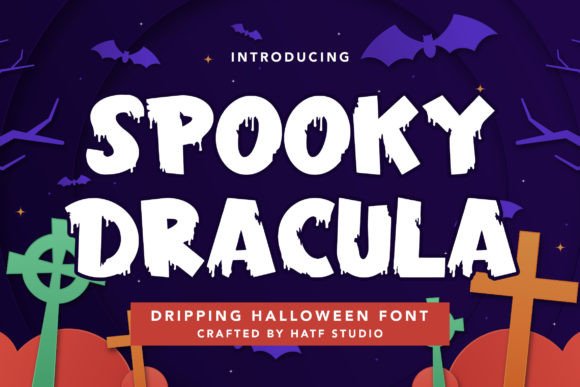
Venture into the captivating world of Spooky Dracula – a font that exudes an uncanny charm like no other. Each character drips with an eerie elegance reminiscent of a moonlit Halloween night. Whether you're crafting prayer cards that demand attention, creating posters that send shivers down spines, or designing logos that haunt the imagination, Spooky Dracula is your perfect companion.
Immerse yourself in the mystique of this display font. Its intricate details and haunting beauty will bestow your designs with a touch of the supernatural. Imagine your words taking on a life of their own, captivating your audience with their spectral allure. Spooky Dracula possesses an unmatched ability to evoke emotions, leaving an indelible mark on those who behold it.
With Spooky Dracula, you possess the ultimate tool to unleash your creativity. Let your imagination run wild as you craft designs that dance between the realms of horror and elegance. Haunted houses, eerie graveyards, and spine-chilling creatures – Spooky Dracula breathes life into your creations, making them hauntingly beautiful.
But beware, dear designer, for the power of Spooky Dracula is not to be underestimated. Its captivating allure may ensnare your audience, leaving them spellbound and longing for more. Its dark charm may cast an eternal spell on your designs, ensuring they forever leave a mark on the hearts and minds of those who encounter them.